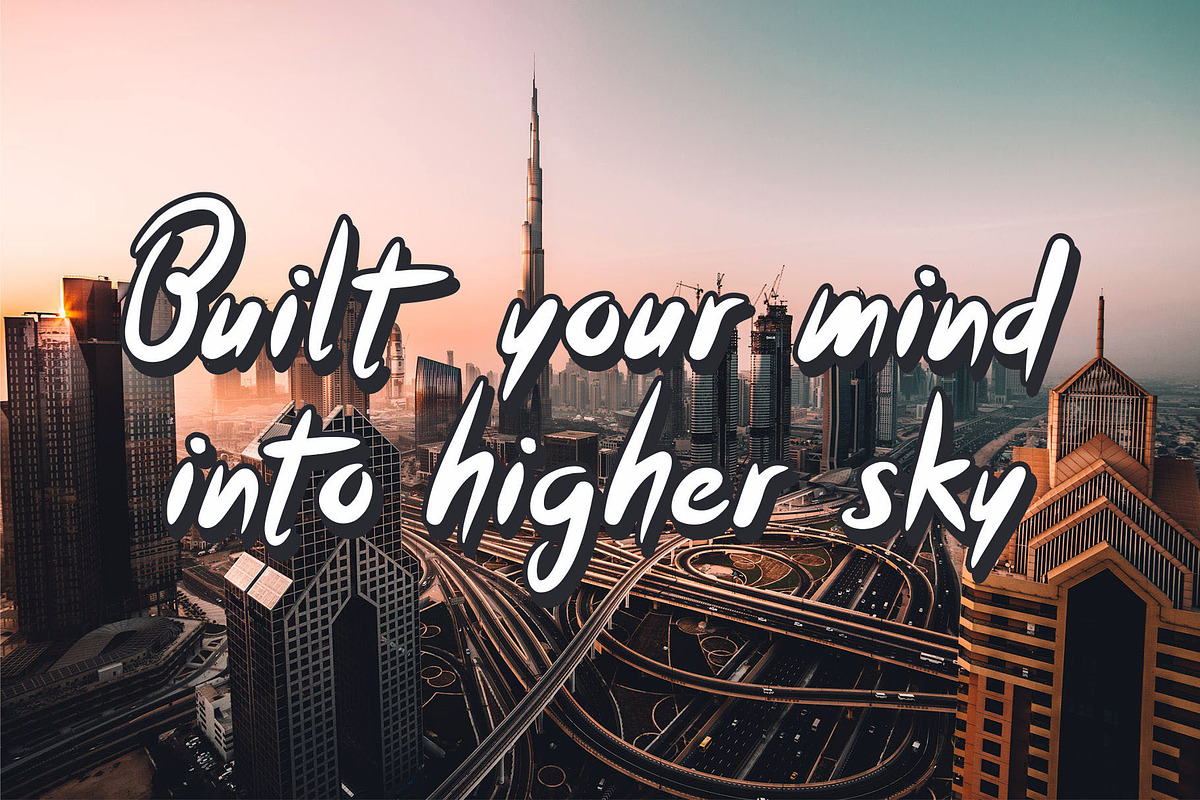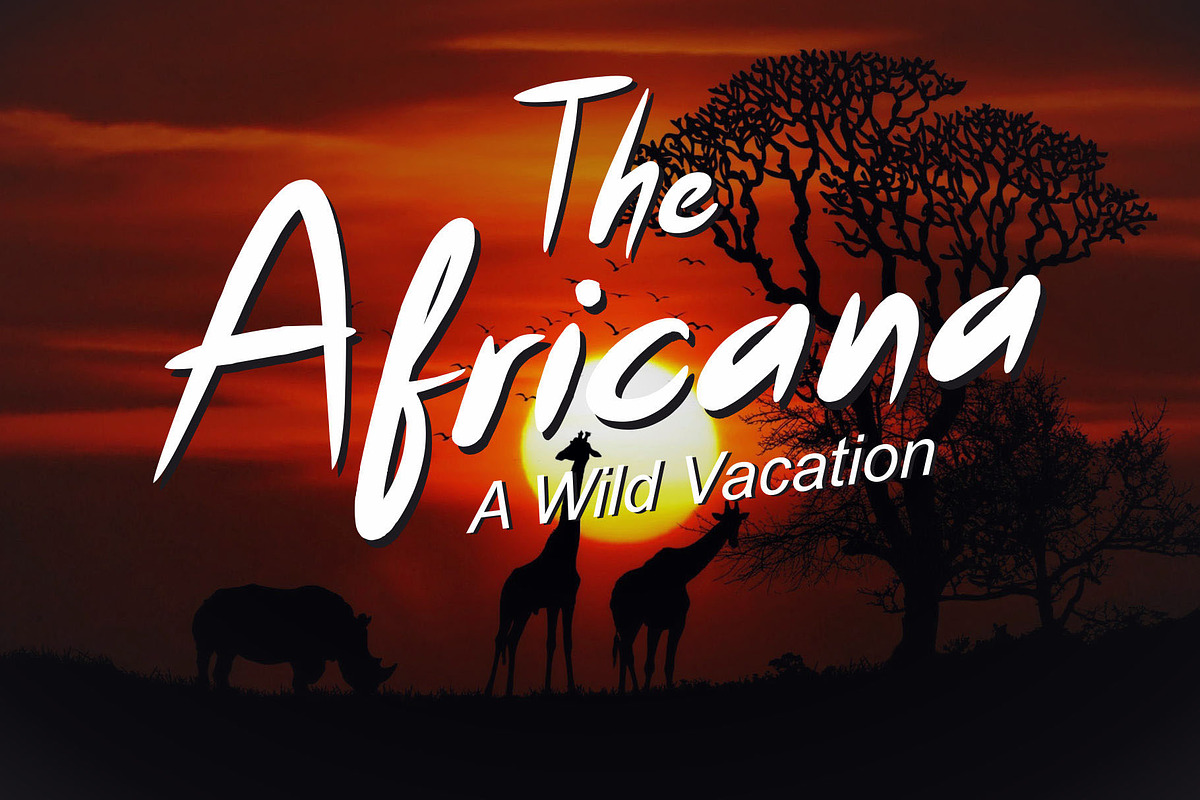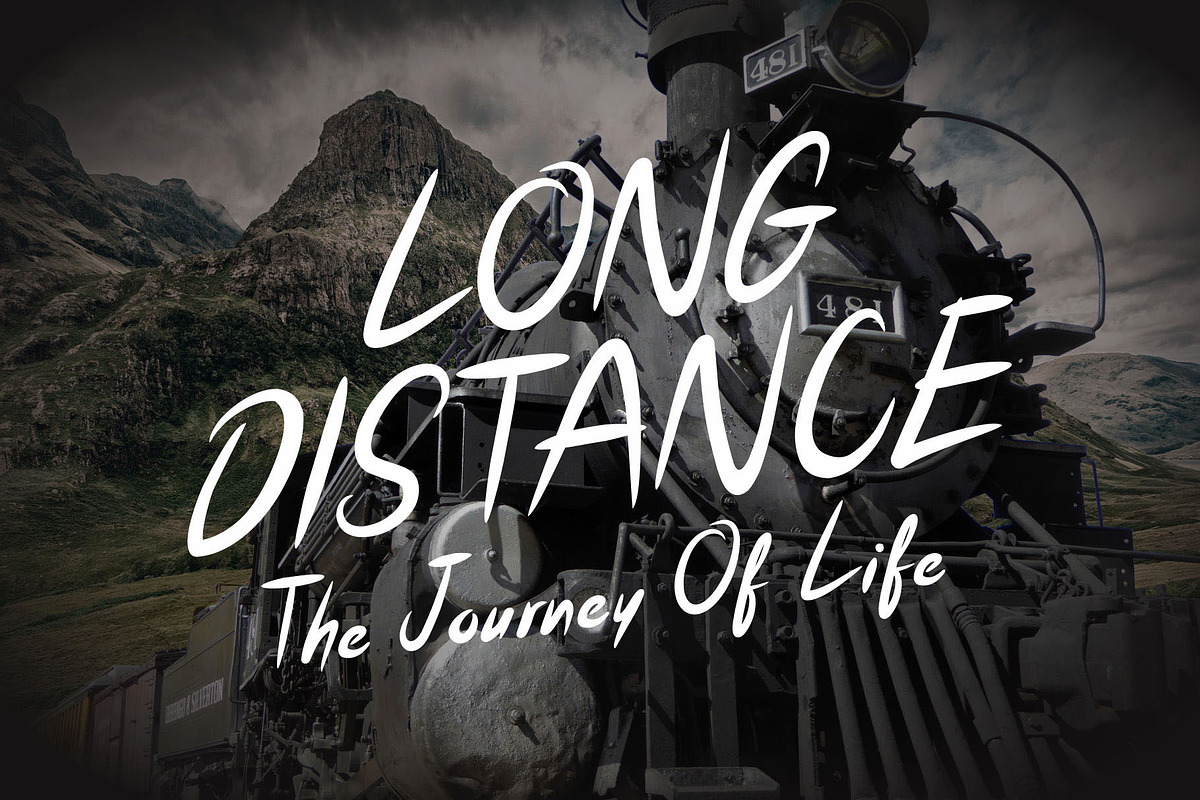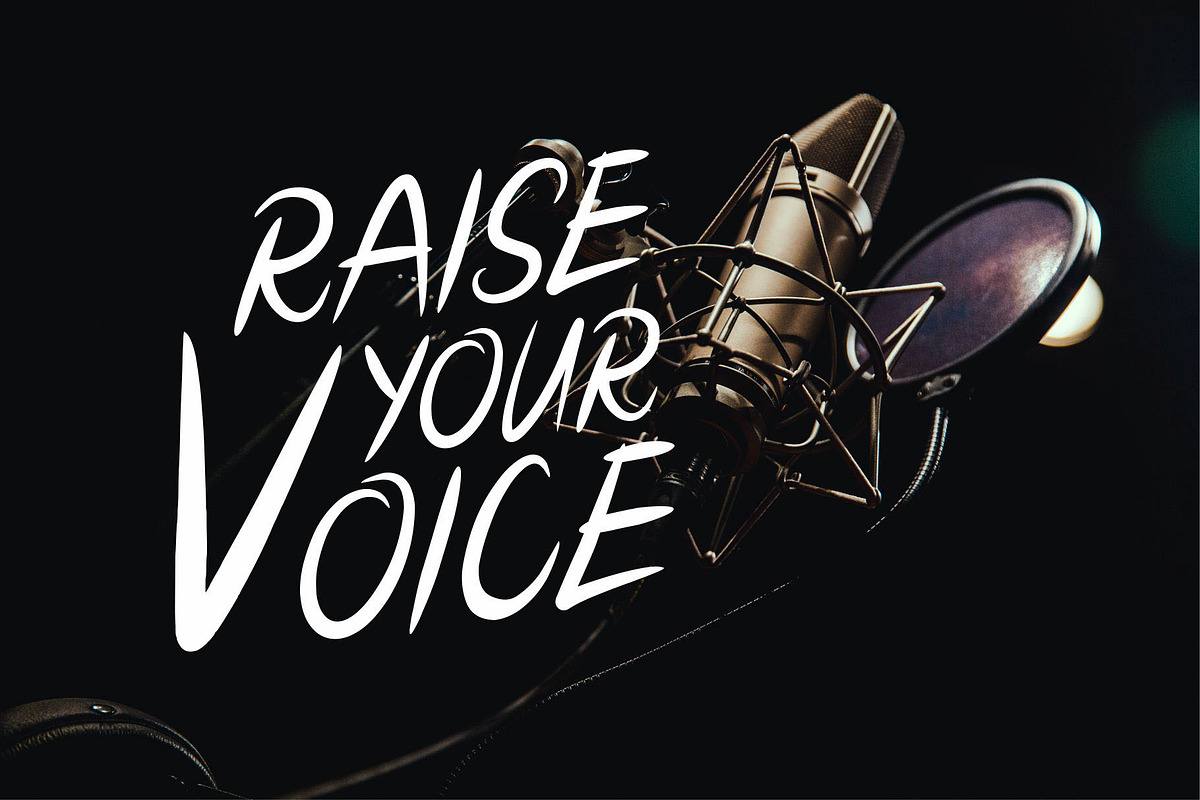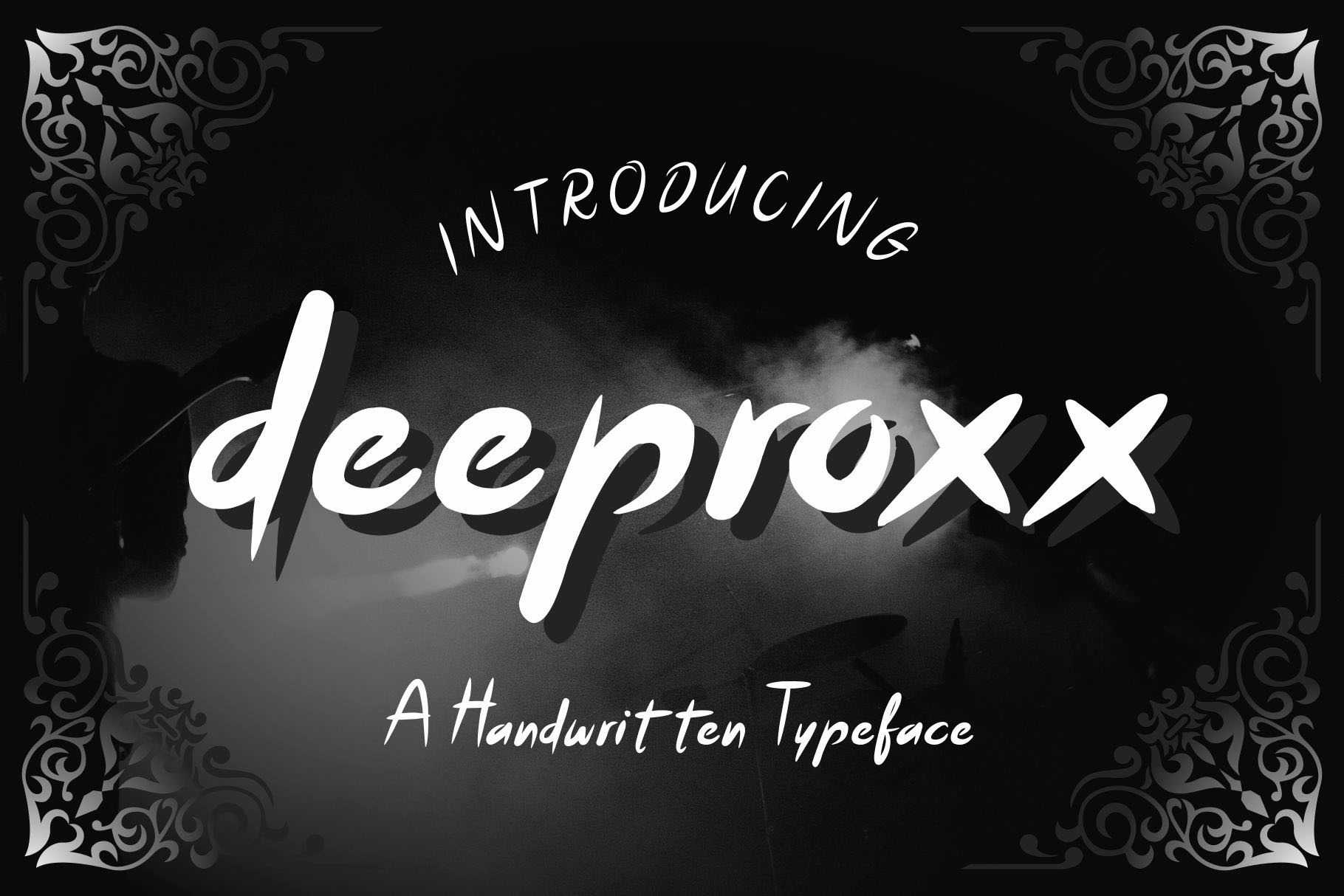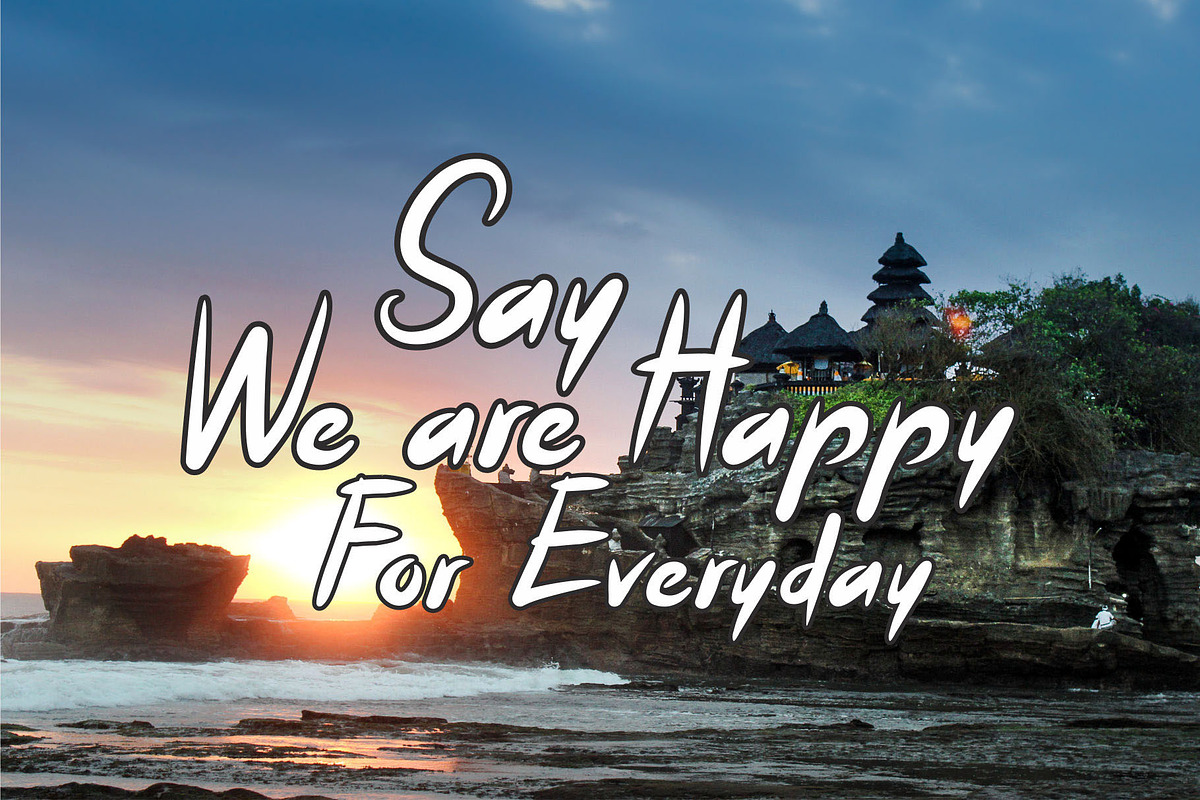
Deeproxx - A Handwritten Font
Deeproxx Font is a handwritten typeface characters. Simple with urban style. Suitable for tagline, headline, poster, tshirt, blackletter theme, gothic theme, urban theme, handlettering style and etc. Deeproxx have 3 formats, OTF TTF WOFF. Enjoy it with my handwritten font product. If you have any question, please contact me by email, emnazar2009@gmail.com